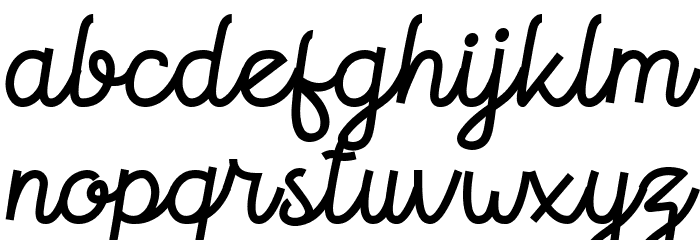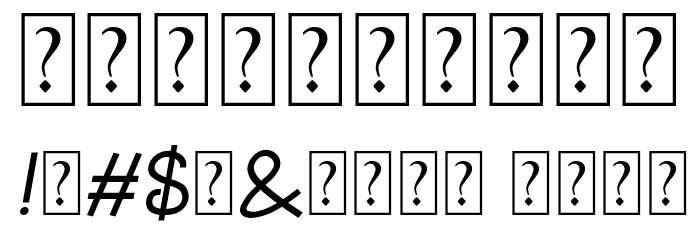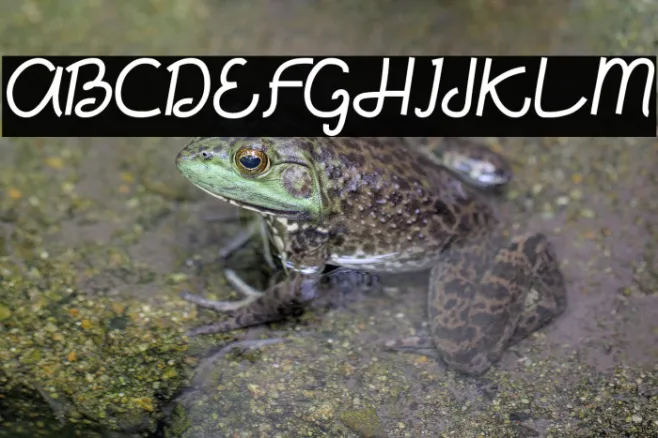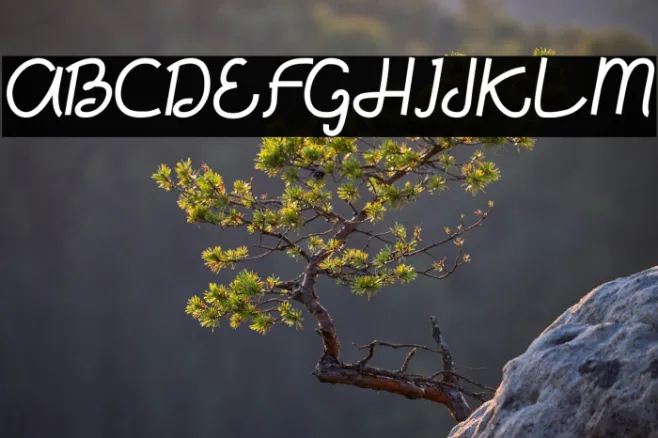
braindly Font
This font features a playful and flowing script style, characterized by its smooth, connected strokes and slight slant. The uppercase letters maintain a consistent height, while the lowercase letters exhibit a gentle, cursive flair. The font's design is elegant yet approachable, making it suitable for a variety of creative applications. The characters are well-spaced, ensuring readability while maintaining a cohesive appearance. The absence of sharp edges and the presence of rounded forms contribute to its friendly and inviting look.
A playful and flowing script font with smooth, connected strokes.